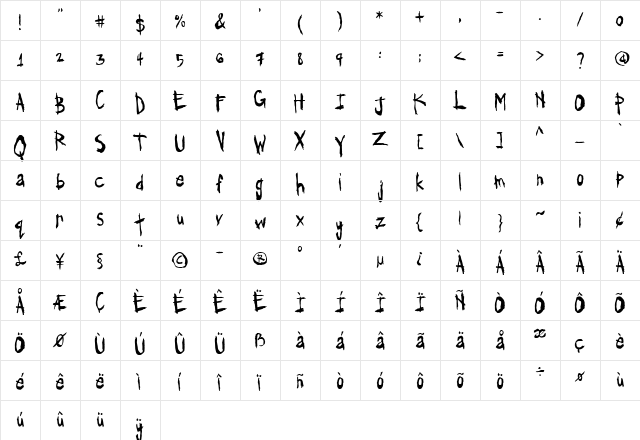
Outhouse Regular
| Foundry | Copr. - House Industries/Brand Design Company. By Kristen Faulkner |
Design Context for Outhouse Typeface
Outhouse is a composed and adaptable typeface that performs quietly and consistently across a wide range of design contexts.